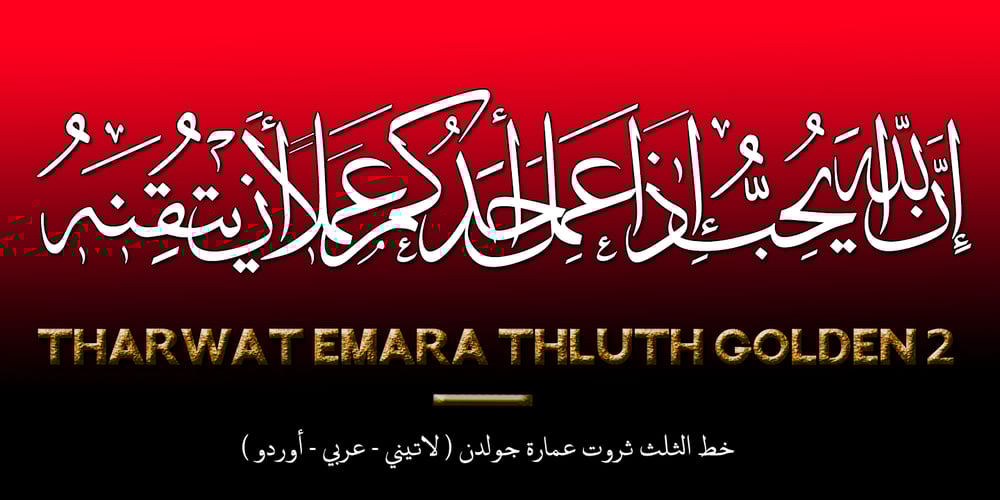
TE Thuluth Golden 2 Font Family was designed by Tharwat Mohamed Emara and published by Tharwat Emara. TE Thuluth Golden 2 contains 1 styles and family package options. Amazing Font of THARWAT which is similar to calligraphy of THULUTH of a real calligrapher. I added many glyphs to get this feature and it becomes easier to a graphic designer to write with Arabic THULUTH font without real calligrapher. Golden2 is beautiful in Headlines of Arabic books and photos. Thuluth font (THARWAT EMARA THULUTH GOLDEN 2) distinguished by its beautiful artistic structures and ready-made sentences to help you design the designer designs and paintings easily. It also retains the beauty of its original Arabic calligraphy. This font can be used in titles of books, magazines and Quranic verses. Also for printing on clothes, Najaf and antiques. It is the first font that you can write complete sentences and Ayat of Quran with beautiful artistic structure like those written by the calligrapher. It also simulates the handwriting and no need to calligraphy it when you have this font.